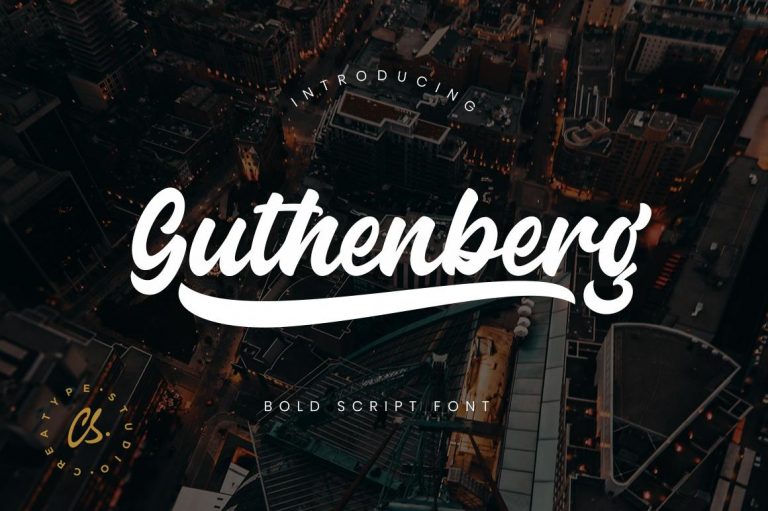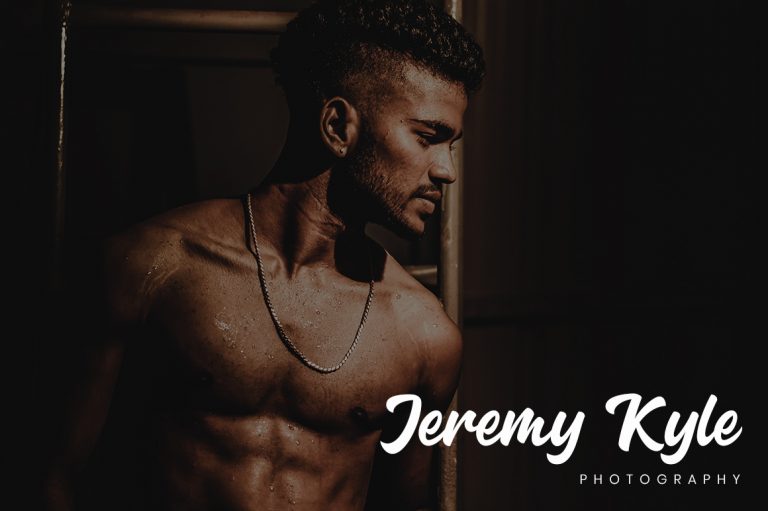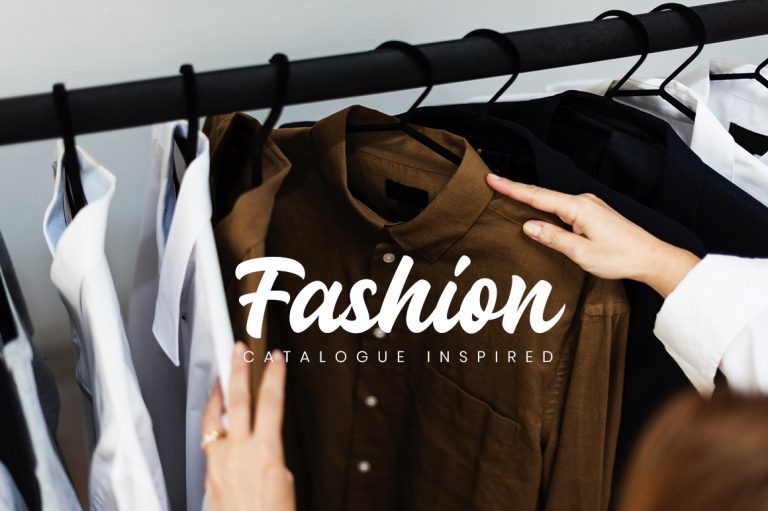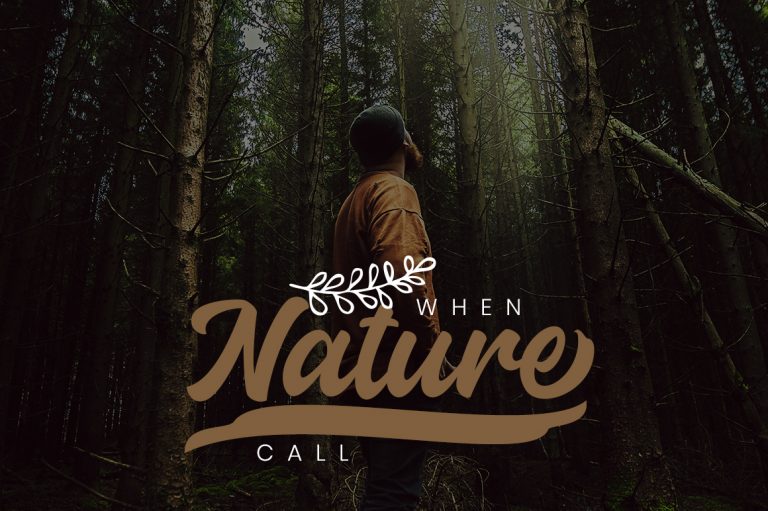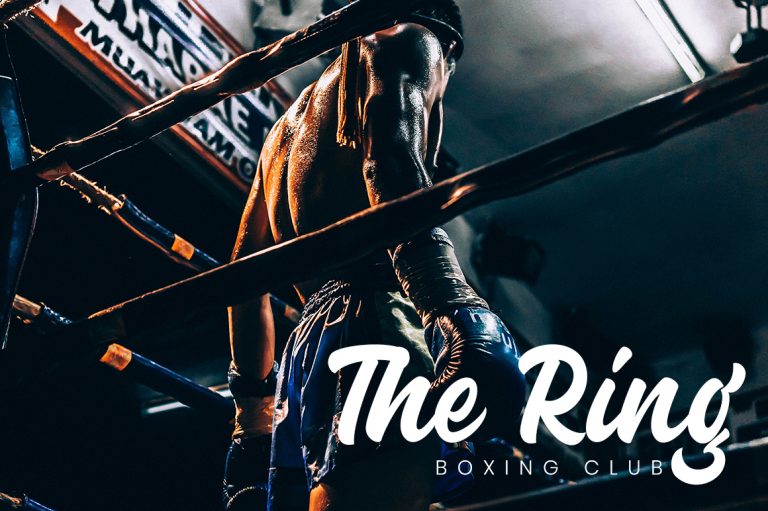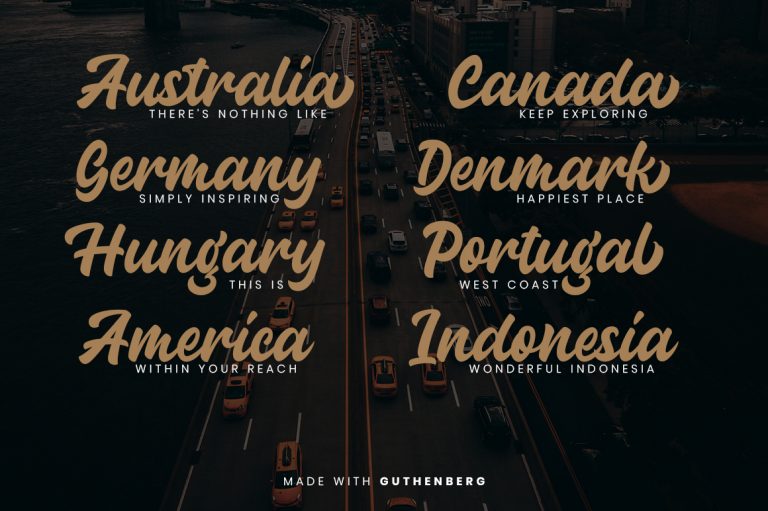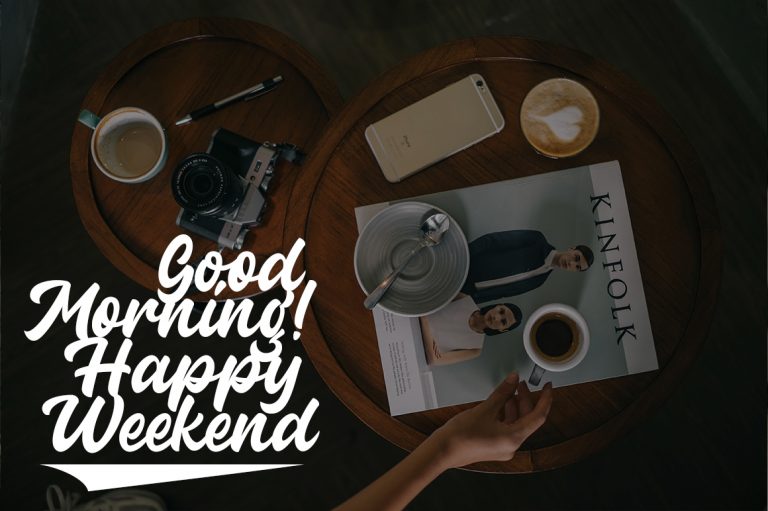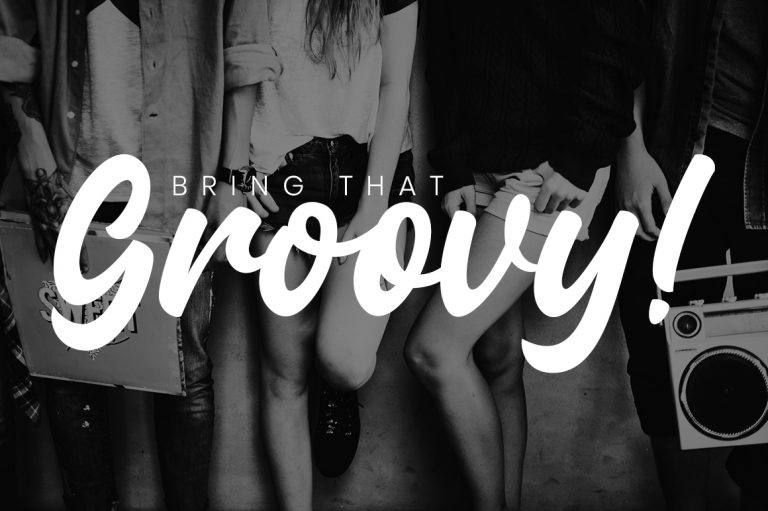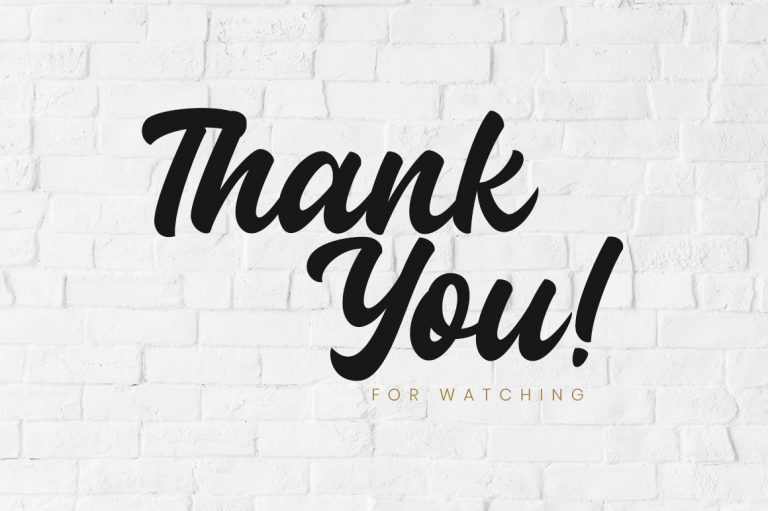
Guthenberg Bold Script is a bold calligraphy script with dramatic movement and strong style for your latest project that needs handlettering taste.
Guthenberg Bold Script is perfect for photography, watermark, social media posts, advertisements, logos & branding, invitation, product designs, label, stationery, wedding designs, product packaging, special events or anything that need handwriting taste.
- More than 300 of glyphs
- Ton of glyphs (include Uppercase, Lowercase, Numerals & Punctuations, Ligature, Swashes)
- Ligature & Stylistic alternate
Guthenberg Bold Script